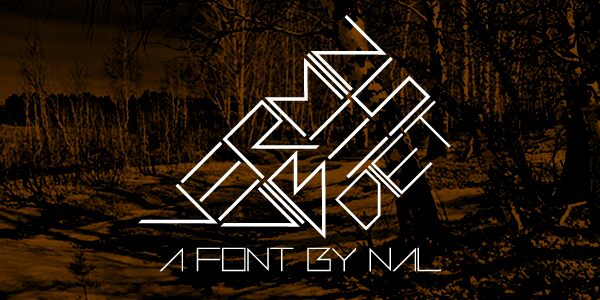
Vermin Vibes Diet by Andrew McCluskey is a free futuristic display font with a sharp retro-tech profile. Its extremely thin strokes, broad proportions, and broken geometric joins turn familiar capitals into sleek circuit-like forms.
Digital graphics are an obvious home for it, particularly game menus and electronic music visuals. It also suits science-fiction posters and technology branding, where the angular letters can become part of the imagery. On magazine covers, it gives futuristic editorial themes a distinctive period-specific title treatment.
Vermin Vibes Diet
Andrew McCluskey
Vermin Vibes Diet was built with FontStruct